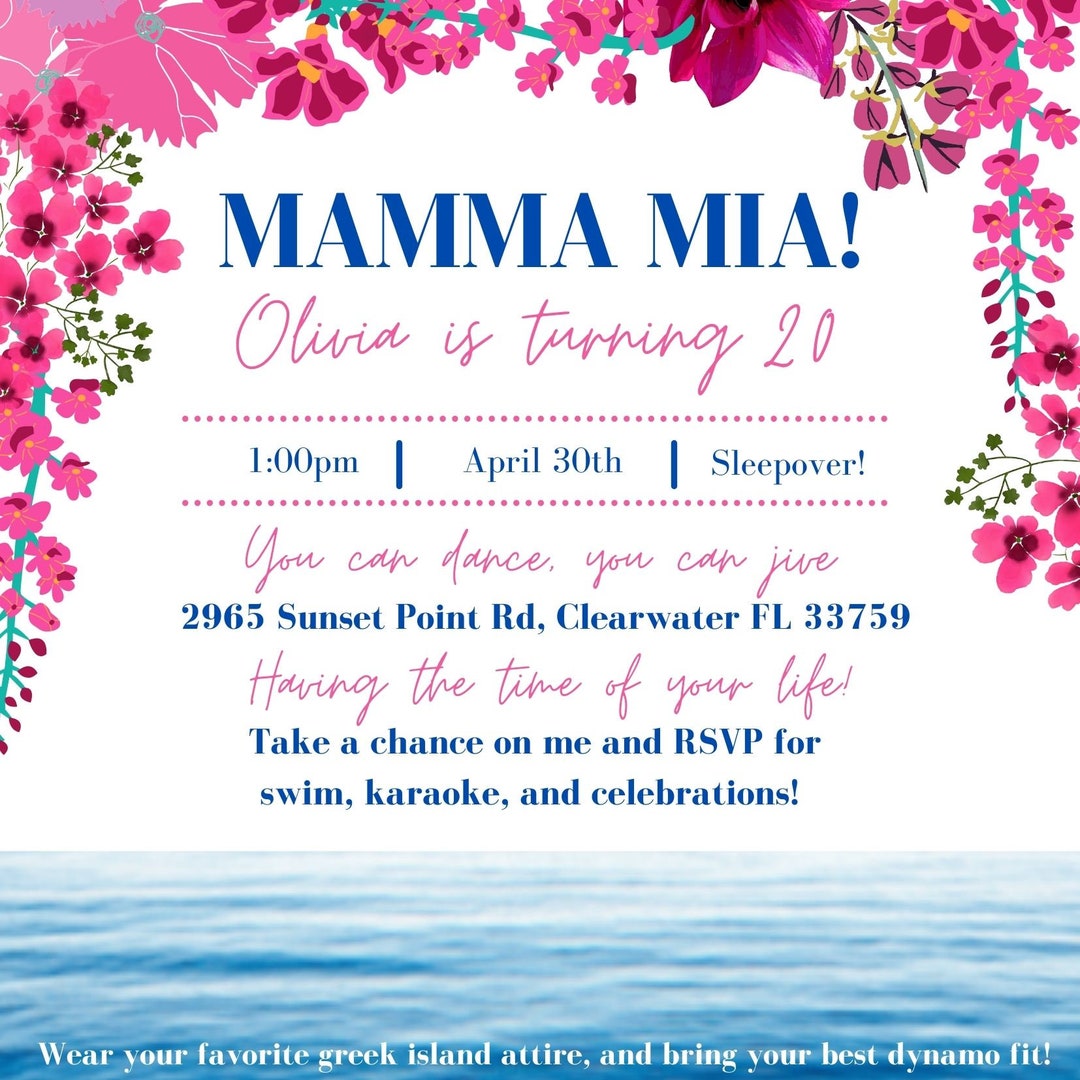
Mamma Mia Font Canva
Mamma Mia Font Canva - Based off of mamma mia, which was released as a romantic comedy. Does anyone know a cricut font that looks like the mama mia font? With the mamma mia font in canva, you can bring your designs to life with dancing letters that pop off the page. I tried looking online and couldn’t find anything. A typeface designed for movies known as mamma mia font. Try using a font finder.
Based off of mamma mia, which was released as a romantic comedy. With the mamma mia font in canva, you can bring your designs to life with dancing letters that pop off the page. A typeface designed for movies known as mamma mia font. I tried looking online and couldn’t find anything. Try using a font finder. Does anyone know a cricut font that looks like the mama mia font?
With the mamma mia font in canva, you can bring your designs to life with dancing letters that pop off the page. Does anyone know a cricut font that looks like the mama mia font? I tried looking online and couldn’t find anything. Try using a font finder. Based off of mamma mia, which was released as a romantic comedy. A typeface designed for movies known as mamma mia font.
A typeface designed for movies known as mamma mia font. Does anyone know a cricut font that looks like the mama mia font? Try using a font finder. Based off of mamma mia, which was released as a romantic comedy. I tried looking online and couldn’t find anything.
Does anyone know a cricut font that looks like the mama mia font? A typeface designed for movies known as mamma mia font. With the mamma mia font in canva, you can bring your designs to life with dancing letters that pop off the page. Try using a font finder. Based off of mamma mia, which was released as a.
With the mamma mia font in canva, you can bring your designs to life with dancing letters that pop off the page. Try using a font finder. A typeface designed for movies known as mamma mia font. I tried looking online and couldn’t find anything. Based off of mamma mia, which was released as a romantic comedy.
Does anyone know a cricut font that looks like the mama mia font? I tried looking online and couldn’t find anything. With the mamma mia font in canva, you can bring your designs to life with dancing letters that pop off the page. Based off of mamma mia, which was released as a romantic comedy. A typeface designed for movies.
Does anyone know a cricut font that looks like the mama mia font? Based off of mamma mia, which was released as a romantic comedy. I tried looking online and couldn’t find anything. Try using a font finder. A typeface designed for movies known as mamma mia font.
Try using a font finder. With the mamma mia font in canva, you can bring your designs to life with dancing letters that pop off the page. A typeface designed for movies known as mamma mia font. Does anyone know a cricut font that looks like the mama mia font? I tried looking online and couldn’t find anything.
Based off of mamma mia, which was released as a romantic comedy. Does anyone know a cricut font that looks like the mama mia font? A typeface designed for movies known as mamma mia font. I tried looking online and couldn’t find anything. With the mamma mia font in canva, you can bring your designs to life with dancing letters.
I tried looking online and couldn’t find anything. Does anyone know a cricut font that looks like the mama mia font? Based off of mamma mia, which was released as a romantic comedy. Try using a font finder. A typeface designed for movies known as mamma mia font.
Try using a font finder. Based off of mamma mia, which was released as a romantic comedy. A typeface designed for movies known as mamma mia font. I tried looking online and couldn’t find anything. With the mamma mia font in canva, you can bring your designs to life with dancing letters that pop off the page.
A typeface designed for movies known as mamma mia font. Try using a font finder. Does anyone know a cricut font that looks like the mama mia font? Based off of mamma mia, which was released as a romantic comedy. With the mamma mia font in canva, you can bring your designs to life with dancing letters that pop off.
Based Off Of Mamma Mia, Which Was Released As A Romantic Comedy.
Try using a font finder. A typeface designed for movies known as mamma mia font. With the mamma mia font in canva, you can bring your designs to life with dancing letters that pop off the page. Does anyone know a cricut font that looks like the mama mia font?